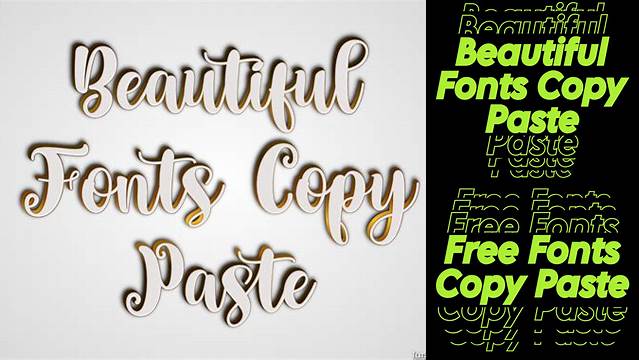
Classy Fonts: Copy & Paste Guide For Stylish Text
Hey guys! Ever stumbled upon some super cool text online and thought, "Wow, I wish I could use that!"? You're not alone. We've all been there, scrolling through Instagram, drooling over beautifully designed posts, or maybe admiring the sleek font on a website. The good news? You absolutely can use those classy fonts too! And guess what? It's way easier than you might think. No fancy software or design degree required. Just a simple copy and paste. Sounds amazing, right? Let's dive into the world of copy and paste fonts and unlock some serious design potential. We'll explore why fonts matter, how you can find and use these stylish texts, and even touch on some cool tools that make the process a breeze. Get ready to level up your text game!
Why Classy Fonts Matter: Making Your Words Stand Out
Think about it: fonts are more than just letters on a page. They're like the clothes your words wear. A classy font can instantly elevate your message, adding personality, style, and a whole lot of visual appeal. Imagine you're writing a heartfelt birthday message. Using a playful, cursive font can convey warmth and sincerity, making the message feel extra special. Or perhaps you're crafting a professional resume. A clean, modern font can project confidence and competence, making a great first impression on potential employers. The font you choose sets the tone, evokes emotions, and even influences how your message is perceived. It's powerful stuff! Choosing the right font style can grab attention, whether you're designing a logo, creating social media content, or simply formatting a document. A unique font can be the difference between a message that blends in and one that truly stands out. Classy fonts help you create a visual hierarchy, guiding the reader's eye and highlighting key information. Think of a website with clear headings and subheadings in a distinct font – it's easy to navigate and understand. Similarly, in a presentation, using different fonts online copy and paste can emphasize important points and make your slides more engaging. When you use stylish font generator copy and paste, you're not just choosing a typeface; you're crafting an experience for your audience. You're making your message more memorable, impactful, and, well, classy! So, let’s get into how you can find these fantastic fancy fonts copy and paste and start using them in your projects.
Finding Your Perfect Classy Font: A Treasure Hunt for Typography
The internet is a goldmine of incredible classy fonts, just waiting to be discovered! But with so many options out there, where do you even begin? Don't worry, we're going on a typography treasure hunt, and I'll show you the map. First up, let’s talk about online font generators. These nifty tools are like font magic. You type in your text, and voilà !, it appears in a variety of stylish fonts. Some popular options include LingoJam, Cool Symbol, and FontGet. These sites offer a huge range of aesthetic fonts copy and paste friendly, from elegant scripts to bold sans-serifs. You can easily browse through the styles, find one you love, and then simply copy and paste it into your document or social media post. It's quick, easy, and a fantastic way to experiment with different looks. Another great resource is dedicated font websites like Google Fonts, Adobe Fonts, and DaFont. Google Fonts, in particular, is a treasure trove of free, open-source fonts that you can use for both personal and commercial projects. These sites allow you to search by style, category, and even language, making it easy to narrow down your options. You can also preview how the font looks in different sizes and weights, ensuring it's the perfect fit for your needs. Beyond font generators and websites, social media platforms like Instagram and Pinterest can be amazing sources of font inspiration. Pay attention to the fonts used in posts, stories, and ads that catch your eye. Often, you can identify the font style using online tools or by asking the creator directly. Remember, the key to finding the perfect font is to explore, experiment, and have fun! Don't be afraid to try out different styles and see what resonates with your message and your personal aesthetic. With a little digging, you'll uncover a world of cool fonts that will transform your text from ordinary to extraordinary. Once you've found those perfect fonts, let's learn how to use them!
Copy, Paste, Create: Using Classy Fonts in Your Projects
Okay, you've found some amazing fonts – now the fun really begins! Using classy fonts is surprisingly simple, thanks to the magic of copy and paste. The process is pretty straightforward, but there are a few tips and tricks to keep in mind to ensure your text looks its absolute best. When you're using a font generator copy and paste, the first step is to type your text into the generator's input box. Then, browse through the different font styles until you find one that makes your heart sing. Once you've chosen your font, simply select the generated text and copy it (Ctrl+C or Cmd+C). Now, head over to your desired application – whether it's a social media platform, a word processor, or a design program – and paste the text (Ctrl+V or Cmd+V). Boom! Your fancy text copy and paste is ready to shine. However, there’s a slight catch. These stylish text generator copy and paste methods often create text that isn't actually editable as a font in the traditional sense. Instead, they use Unicode characters that resemble different font styles. This means you might not be able to change the font size or style directly within your application. But don't worry, there are workarounds! In many cases, you can still adjust the size of the text by scaling the text box or container it's in. For more advanced editing, consider using design software like Adobe Photoshop or Canva. These platforms allow you to upload and use custom fonts, giving you more control over your typography. If you're using fonts from websites like Google Fonts, you'll typically need to download the font files and install them on your computer. Once installed, the font will be available in your applications, just like any other system font. This gives you full control over the font's appearance and allows you to use it in a wide range of projects. Remember, the key to using aesthetic fonts copy and paste effectively is to experiment and have fun. Try different combinations, play with sizes and styles, and see what works best for your message and your overall design. With a little practice, you'll be a font-using pro in no time!
Tools and Tricks for Classy Font Copy and Paste
So, you're ready to become a font master? Let's explore some of the coolest tools and tricks that will make your copy and paste font journey even smoother. We've already touched on font generator copy and paste websites like LingoJam and Cool Symbol, but there are a few other hidden gems worth mentioning. YayText is another fantastic online tool that offers a wide variety of stylish fonts, including bold, italic, and even strikethrough options. It's super user-friendly and makes it easy to create eye-catching text for social media and beyond. For those who want to take their typography to the next level, font identifier tools can be a lifesaver. Ever seen a font you love but have no idea what it's called? Font identifiers like WhatTheFont and Font Matcherator allow you to upload an image of the font, and they'll do their best to identify it for you. This is incredibly helpful for replicating a specific look or finding similar fonts. If you're a social media enthusiast, you'll be thrilled to know that there are apps specifically designed for creating stylish text for your posts and stories. Apps like Fontselfie and Fancy Text Symbols offer a range of unique fonts and symbols that you can easily copy and paste into your social media updates. These apps often include additional features like text effects and design templates, making it even easier to create stunning visuals. Another useful trick is to create a “font library” – a document or folder where you save your favorite classy fonts and the websites or tools you found them on. This will save you time and effort in the long run, as you'll have a go-to resource for all your typography needs. Remember, the world of cool fonts copy and paste is vast and ever-evolving. Don't be afraid to explore new tools, experiment with different styles, and develop your own unique font aesthetic. With a little creativity and the right resources, you can transform your text from plain to phenomenal.
Level Up Your Text Game: Final Thoughts on Classy Fonts
Alright guys, we've reached the end of our classy font adventure, and I hope you're feeling inspired and ready to unleash your inner typography artist! We've covered why fonts matter, how to find them, how to use them, and even explored some fantastic tools and tricks along the way. The key takeaway here is that anyone can create stunning text with a little help from the world of copy and paste fonts. You don't need to be a professional designer to elevate your message with a touch of style and personality. Whether you're crafting social media posts, designing presentations, or simply writing emails, the right font can make all the difference. It's about choosing a typeface that reflects your message, your brand, and your unique voice. So, don't be afraid to experiment, explore, and have fun with it! Try out different font generators, browse font websites, and pay attention to the fonts you see in the world around you. Build your font library, master the copy and paste technique, and watch your text transform from ordinary to extraordinary. Remember, classy fonts are more than just letters; they're a powerful tool for communication, expression, and creativity. By harnessing their potential, you can make your words stand out, capture attention, and leave a lasting impression. Now go out there and make some font magic happen! You've got this! And always remember, the perfect font is just a copy and paste away. Keep experimenting and keep expressing yourself in style!